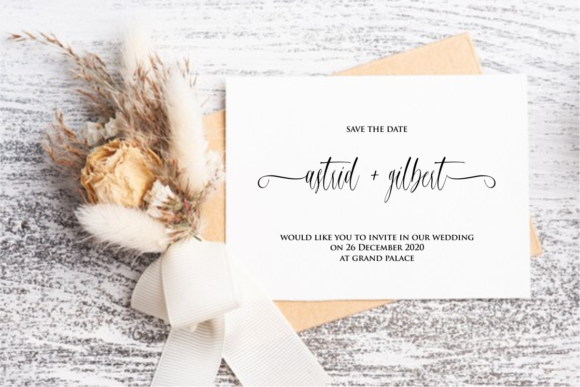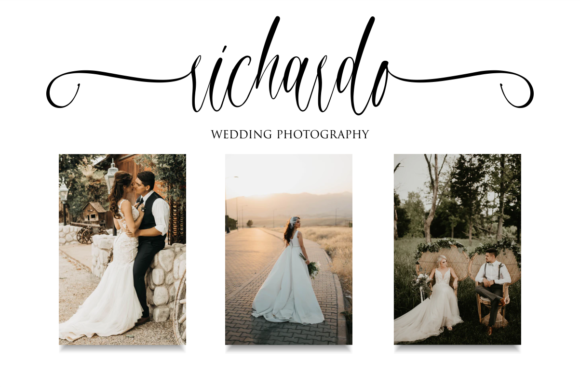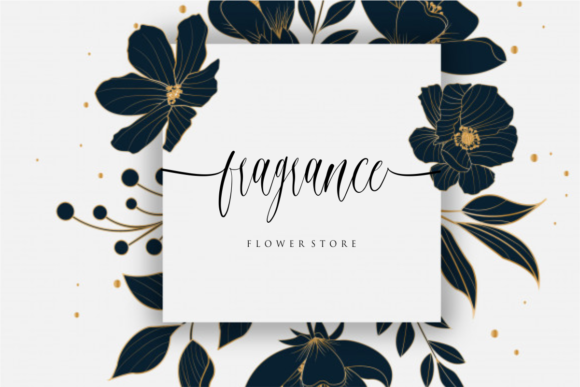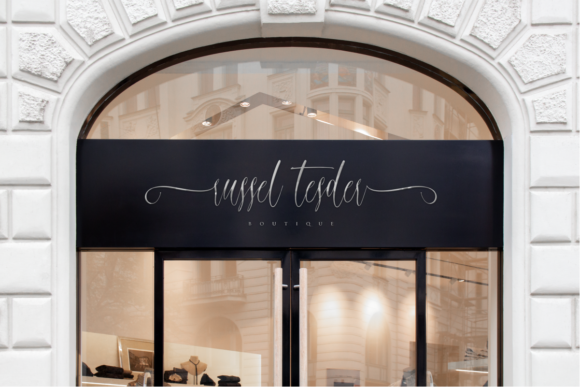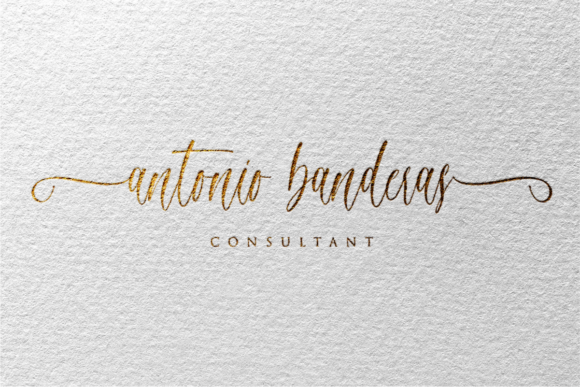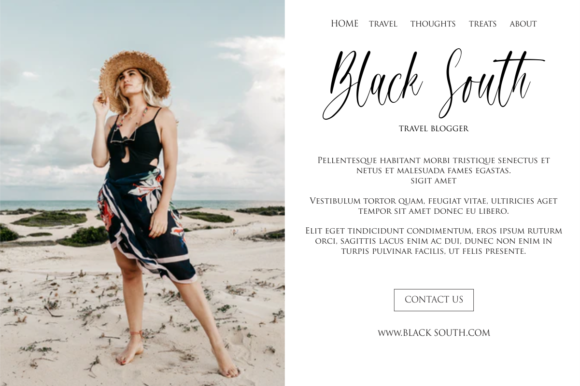
Unlock the Magic of Handwritten Charm
Have you ever spent hours pouring over Pinterest boards, searching for the perfect font to match your wedding vision? The swooping curves and elegant flair of a beautifully handwritten font can instantly transport you to a whimsical world of romance and sophistication. For designers and creatives, the quest for that perfect font can be a thrilling adventure, and we’re excited to introduce you to a game-changing discovery: the Bridesmaid Font.
This stunning font is more than just a pretty face – it’s a versatile tool that can elevate any design project from wedding invitations to social media posts. With its PUA encoding, accessing all the glyphs and swashes is a breeze, making it a valuable asset for designers who want to add a touch of handmade charm to their work. Whether you’re a seasoned pro or a design newbie, the Bridesmaid Font is sure to fall in love with its unique style and endless possibilities.
Bridesmaid Font Key Features
- Font Family: Bridesmaid Script, a modern and elegant script font designed for wedding invitations and other special occasions.
- Unique Characteristics: Features a flowing, cursive design with swashes and flourishes, adding a touch of elegance and sophistication to wedding invitations and other special occasions.
Bridesmaid Font Review
Overall, I found the Bridesmaid Font to be a charming and elegant addition to any wedding design. ✨ The font’s flowing script style and ornate details evoke a sense of classic sophistication, perfect for a wedding invitation or bridal shower invitation.
- ✨ Elegant and flowing script style, ideal for wedding designs
- ✨ Perfect for creating a sense of classic sophistication
- ✨ High-quality vector format for easy scalability
- ⚠️ Limited character set, which may be restrictive for longer text
- ⚠️ May require additional design elements to balance out the font’s ornate details
- ⚠️ Not ideal for modern or minimalist wedding designs
While the Bridesmaid Font has its limitations, I believe it’s a great choice for designers who want to create a classic, elegant look for their wedding designs. With a little creativity and planning, you can work around its limitations and achieve stunning results.
Tips for Getting the Most Out of Bridesmaid Font
For the best results, use Bridesmaid Font in conjunction with a pastel color palette and feminine design elements. You can also experiment with different font sizes and styles to create a unique and eye-catching look.
Bridesmaid Font is commonly used for wedding invitations, bridal showers, and other wedding-related designs. It’s also a great choice for baby shower invitations and other feminine-themed designs.